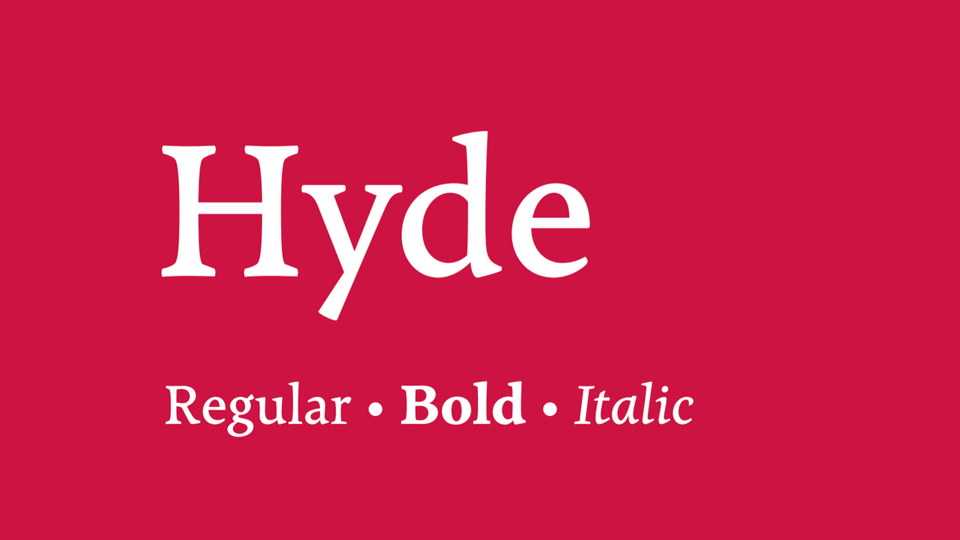
Download Hyde typeface, a serif font family designed for magazines and books. The rhythm coupled with robust letterforms makes Hyde a versatile typeface.
Designer: Andrew Berry